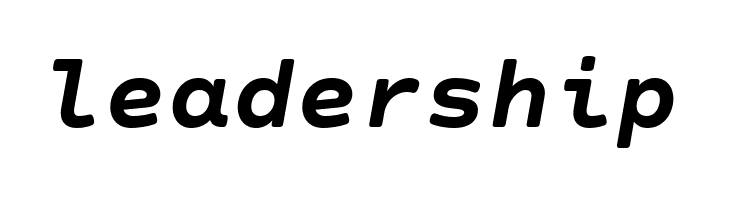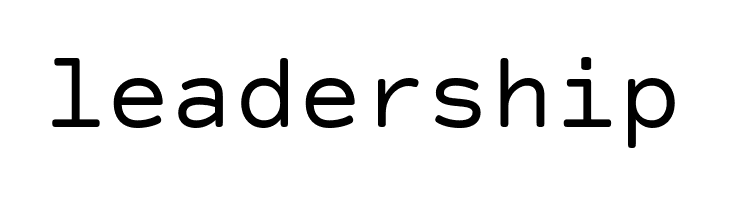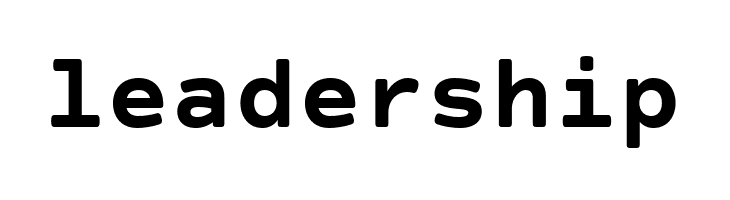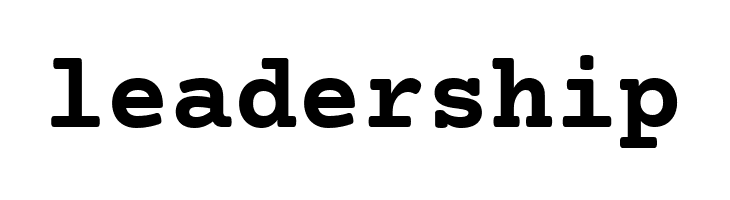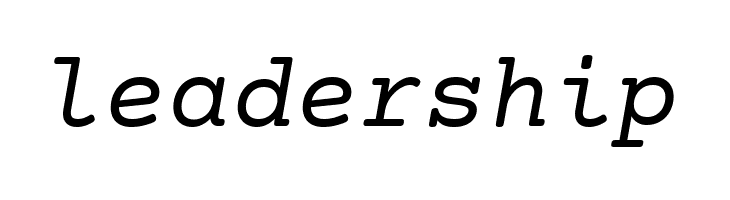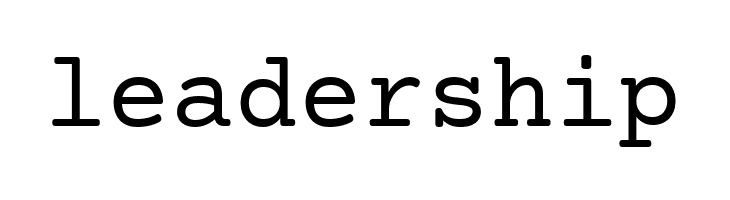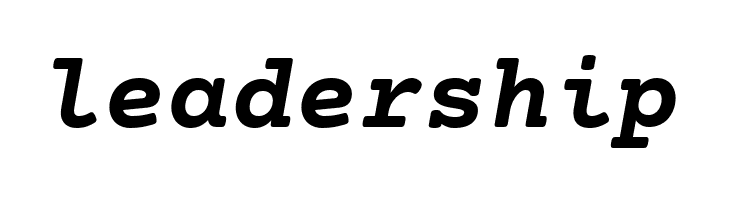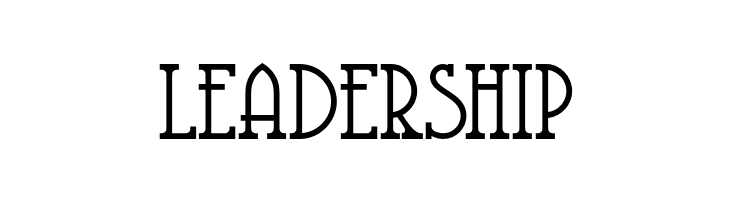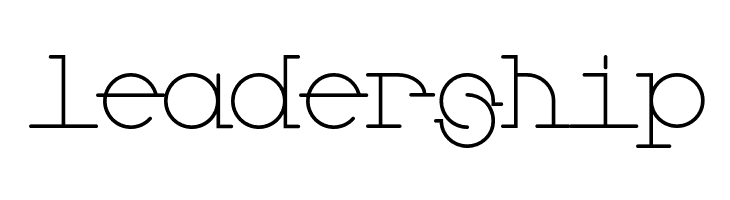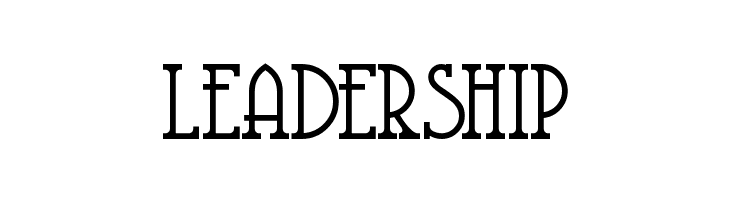
• Couple Goals
An elegant and flowing script font with ornate details and graceful loops.
• Couple Valentine PERSONAL USE O
A bold, heart-adorned decorative font ideal for romantic themes.
• Couples
Cartoon couples form each character in a playful, hand-drawn style.
• Courage Road
A bold, textured font with a distressed, vintage look.
• CourageRoad
A bold, textured font with a distressed, vintage look.
• Courier Funeral
Outlined, monospaced slab serif with a playful, cartoon-like style.
• Courier Prime Code Italic
A monospaced, italic font with a clean, modern design ideal for coding.
• Courier Prime Sans
A clean, modern sans-serif monospaced font with low contrast and uniform spacing.
• Courier Prime Sans Bold
A bold, monospaced sans-serif font with a modern and clean design.
• Courier Prime Sans Bold Italic
A bold, italic, monospaced sans-serif font with clear, evenly spaced characters.
• Courier Prime Sans Italic
A clean, monospaced italic font with low contrast and modern style.
• CourierPrime
A monospaced font with a classic typewriter style, offering clarity and uniformity.
• CourierPrime-Bold
A bold, monospaced font with a classic typewriter style.
• CourierPrime-BoldItalic
A bold, italic monospaced font with a classic typewriter style.
• CourierPrime-Italic
A monospaced italic font with a classic, readable design.
• CourierPrimeCode-Regular
A clean, monospaced font perfect for coding and technical documentation.
• Courrrier
A modern, geometric font with angular and futuristic design elements.
• Course Regular
A bold, 3D geometric font with a futuristic, industrial style.
• Courtland
• Covert Ops Condensed Italic
A bold, condensed, and italicized font with a dynamic and modern style.